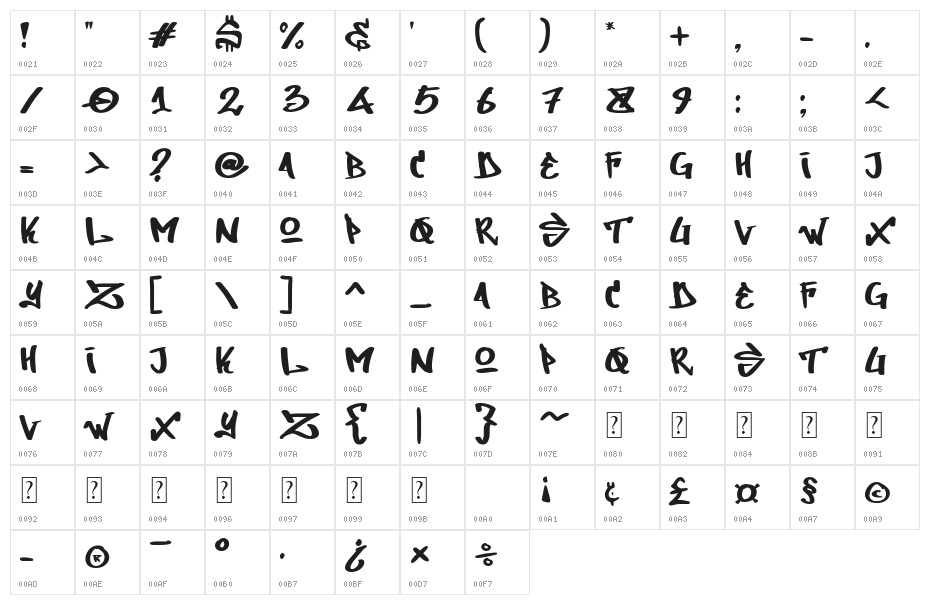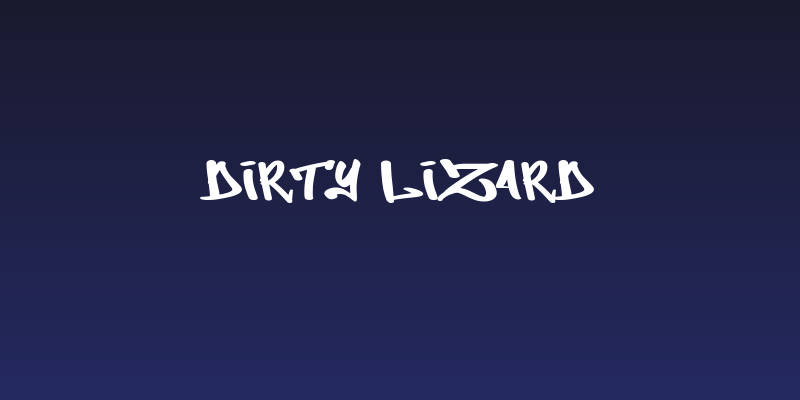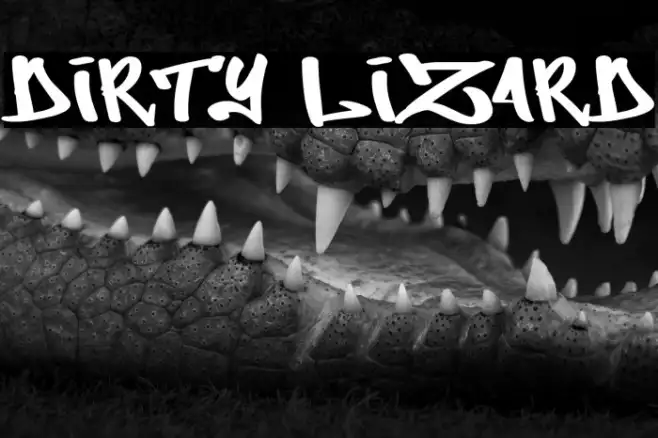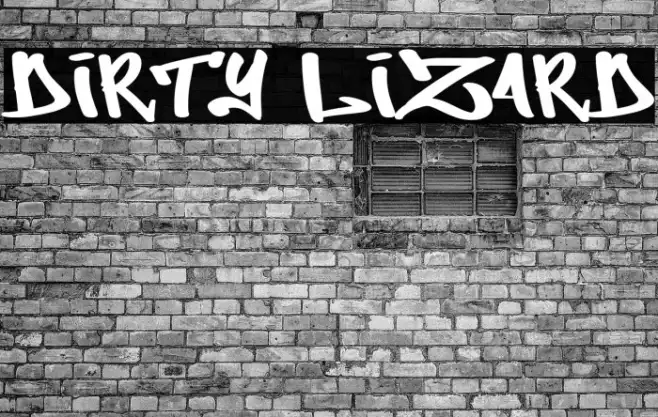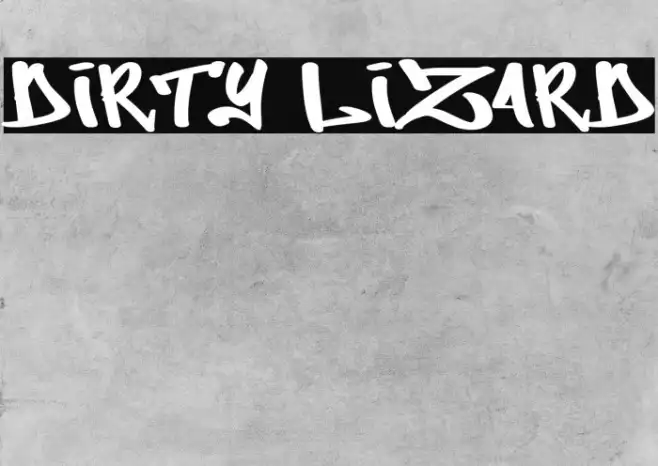
Dirty Lizard Font
Dirty Lizard Description
This font features a bold and dynamic style with a graffiti-inspired aesthetic. The characters are thick and expressive, with a hand-drawn appearance that gives them a lively and energetic feel. The uppercase and lowercase letters maintain a consistent style, with exaggerated curves and angles that add to the font's unique personality. The numbers and special characters are equally bold, ensuring a cohesive look across all text elements. This font's playful yet edgy design makes it stand out, perfect for projects that require a strong visual impact.
| Proposed Projects | Ideal for street art designs, urban-themed posters, music album covers, and edgy branding projects. |